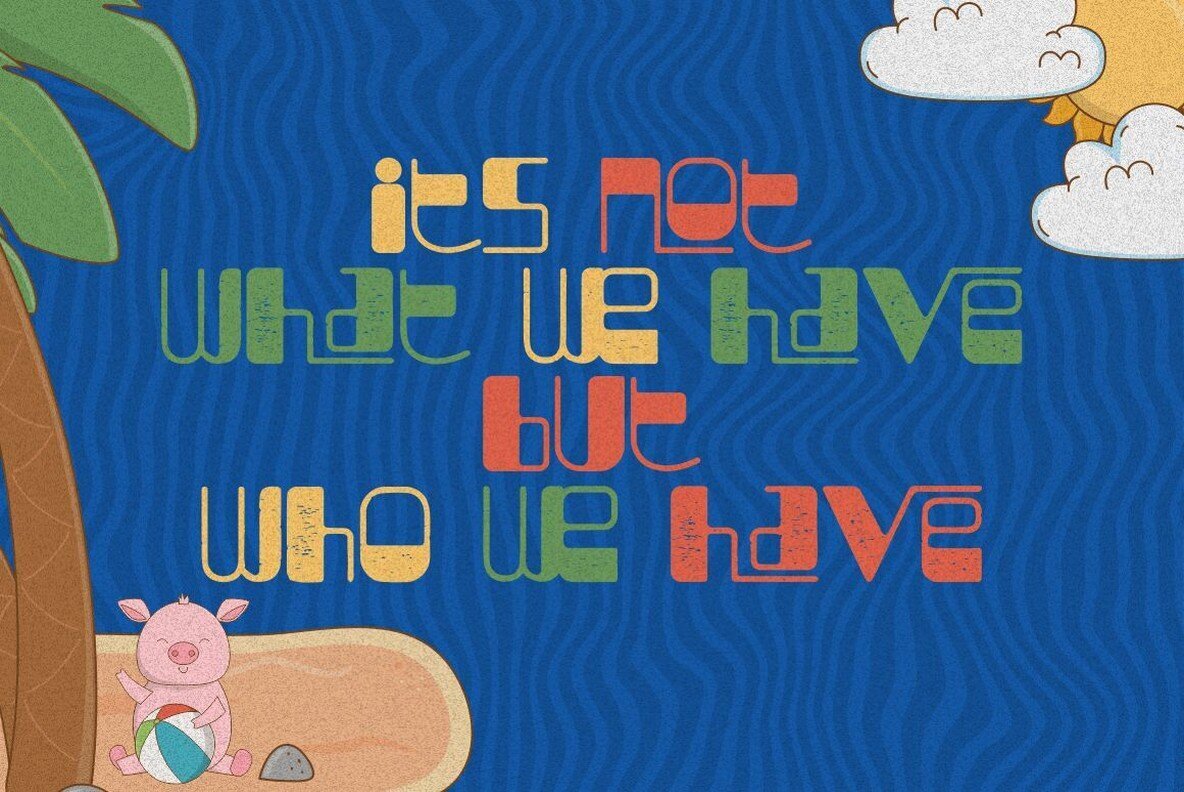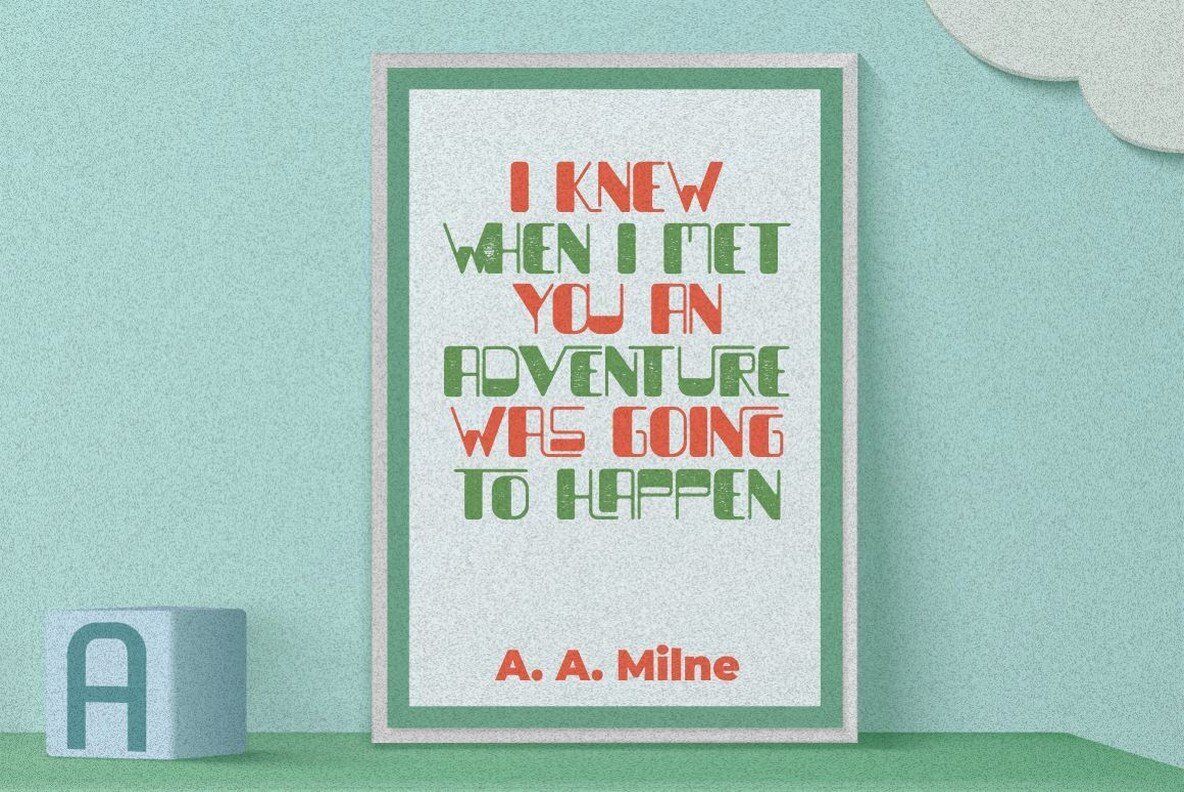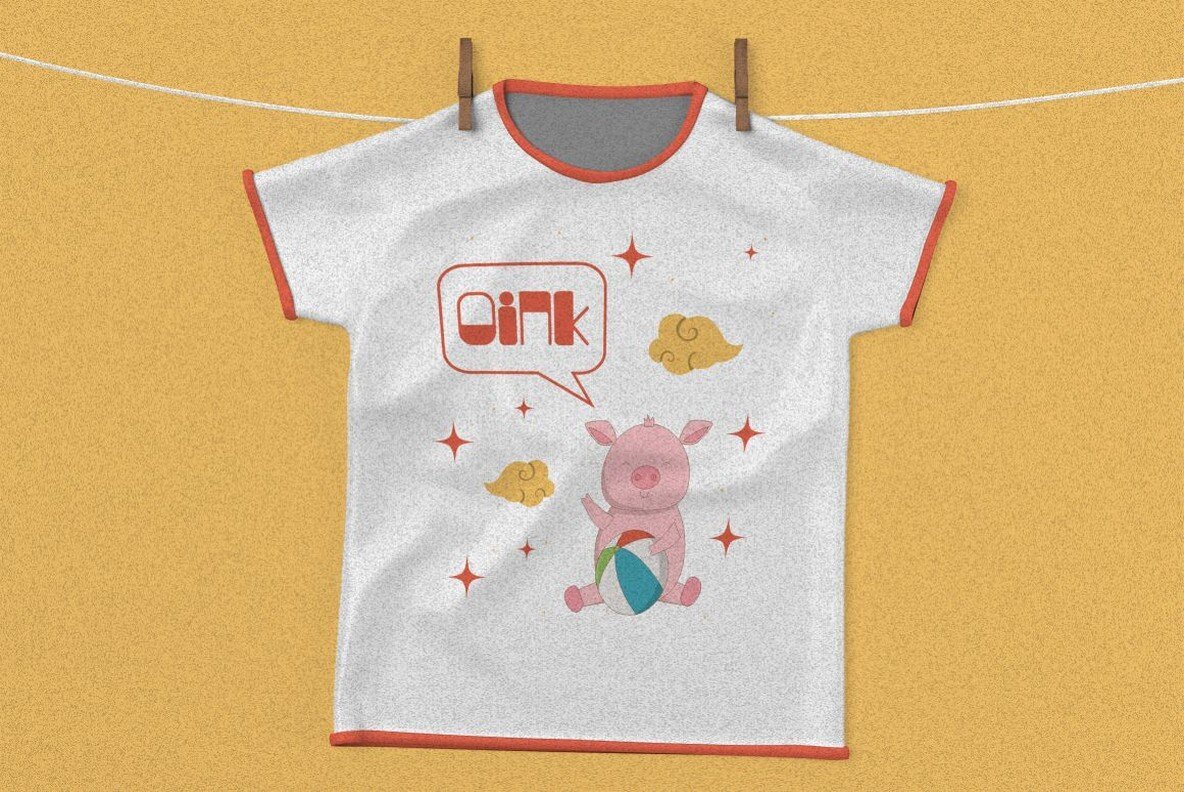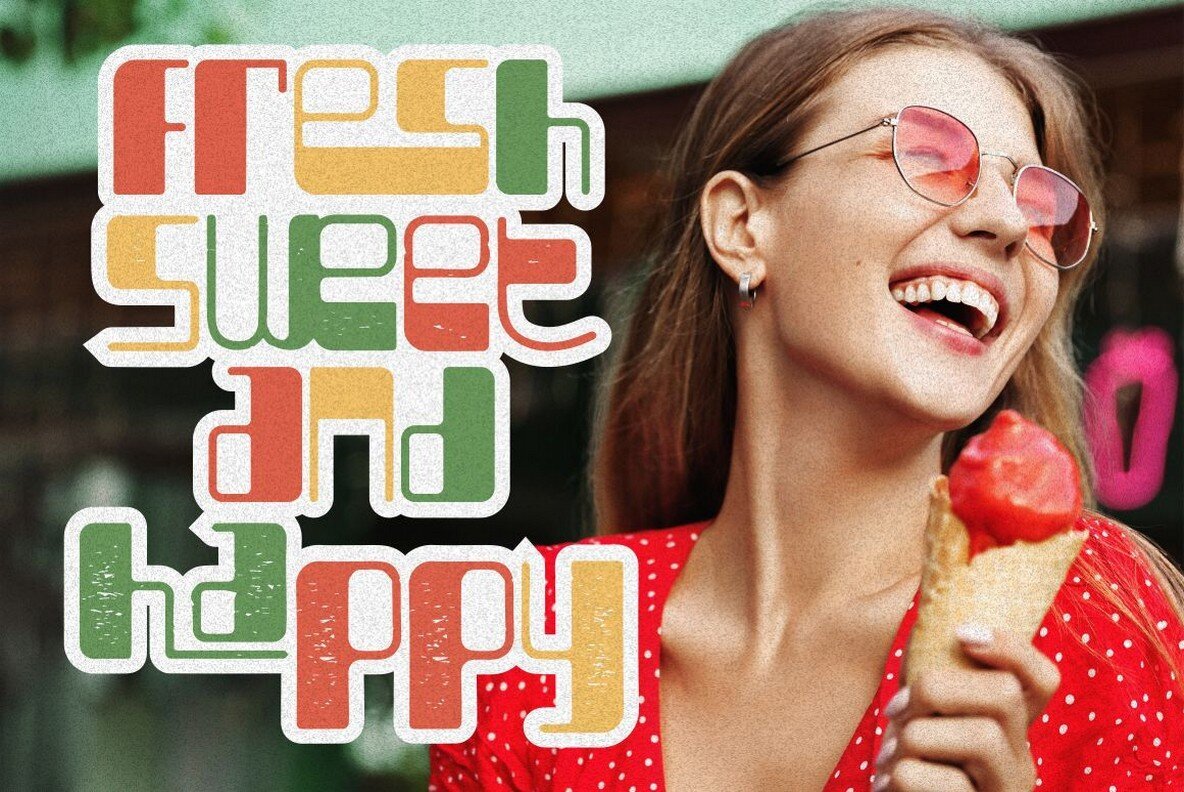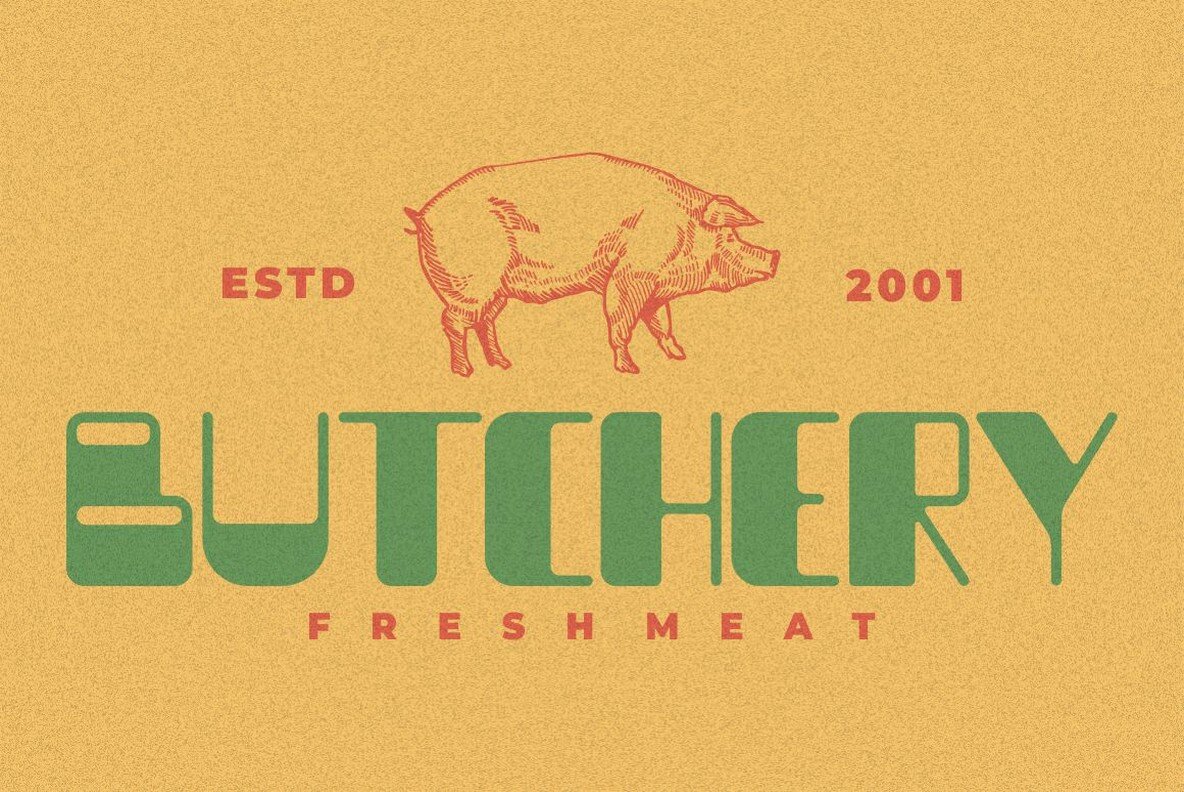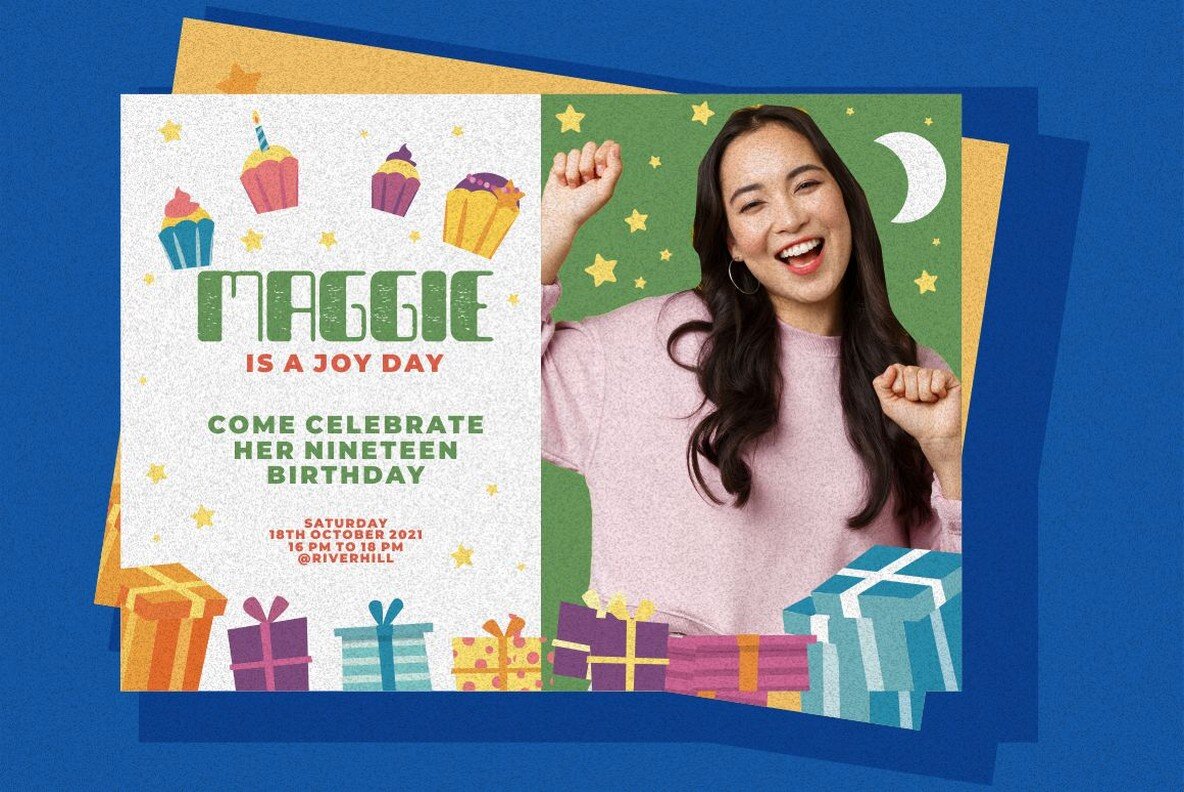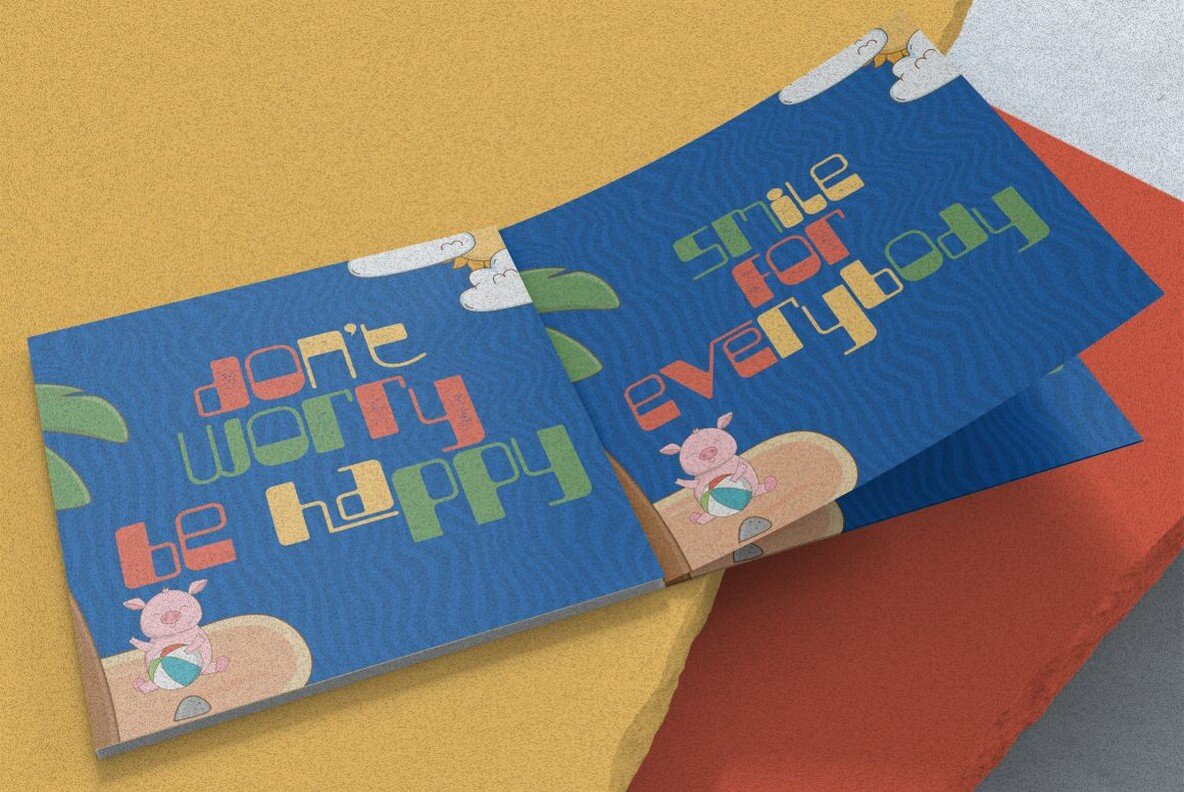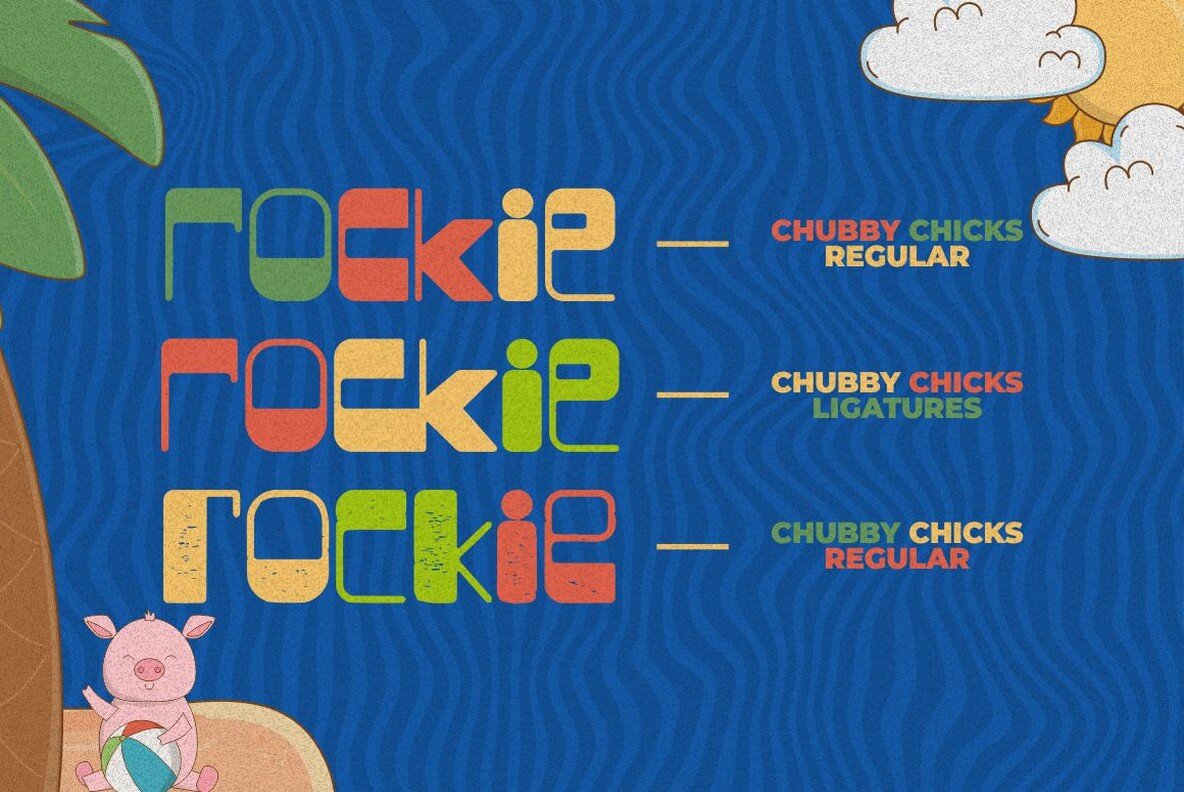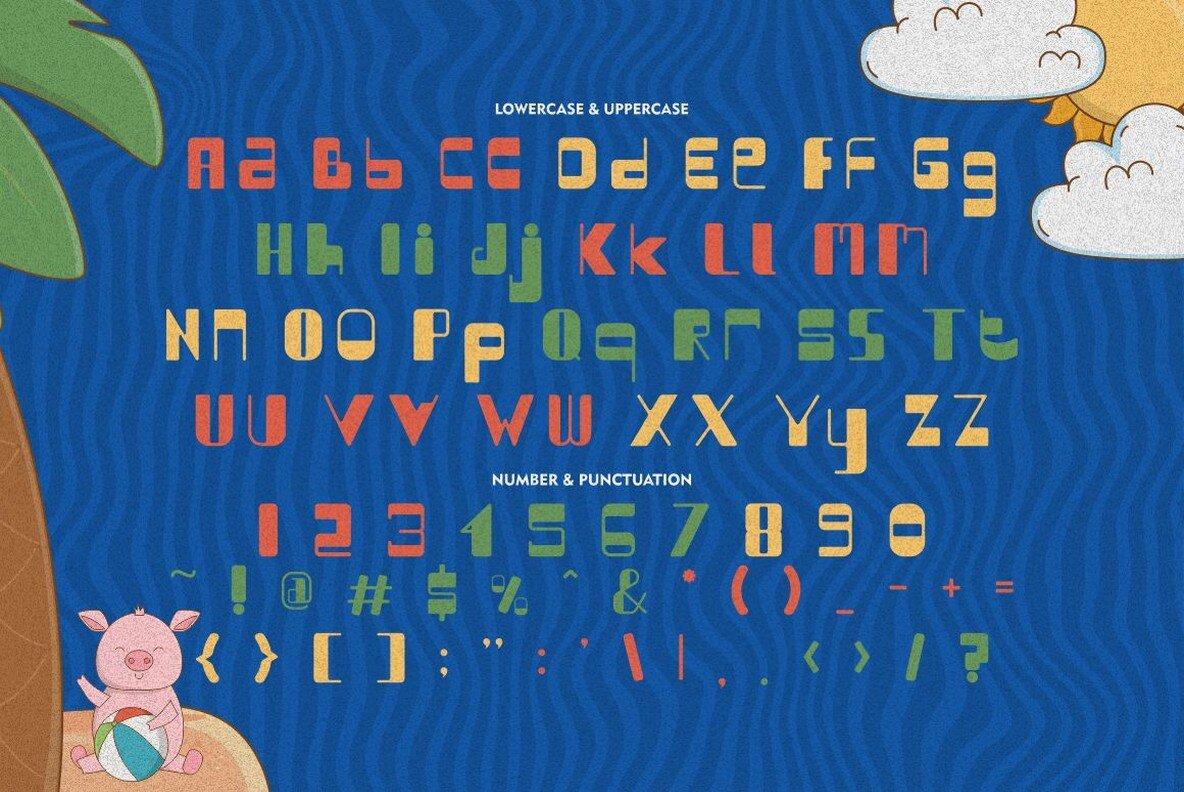
Chubby Piglets Font
Chubby Piglets Regular
Chubby Piglets Texture
Introducing Chubby Piglets - a fun and funky new font with a distinctly trendy and cute appeal! Perfect for any project related to children, from storybooks and illustrations to comic books and t-shirts, this font will add personality and charm.
With its childlike style, Chubby Piglets is also ideal for branding and marketing materials aimed at a younger audience. So if you're looking to add a touch of playfulness to your next project, Chubby Piglets is the perfect choice!